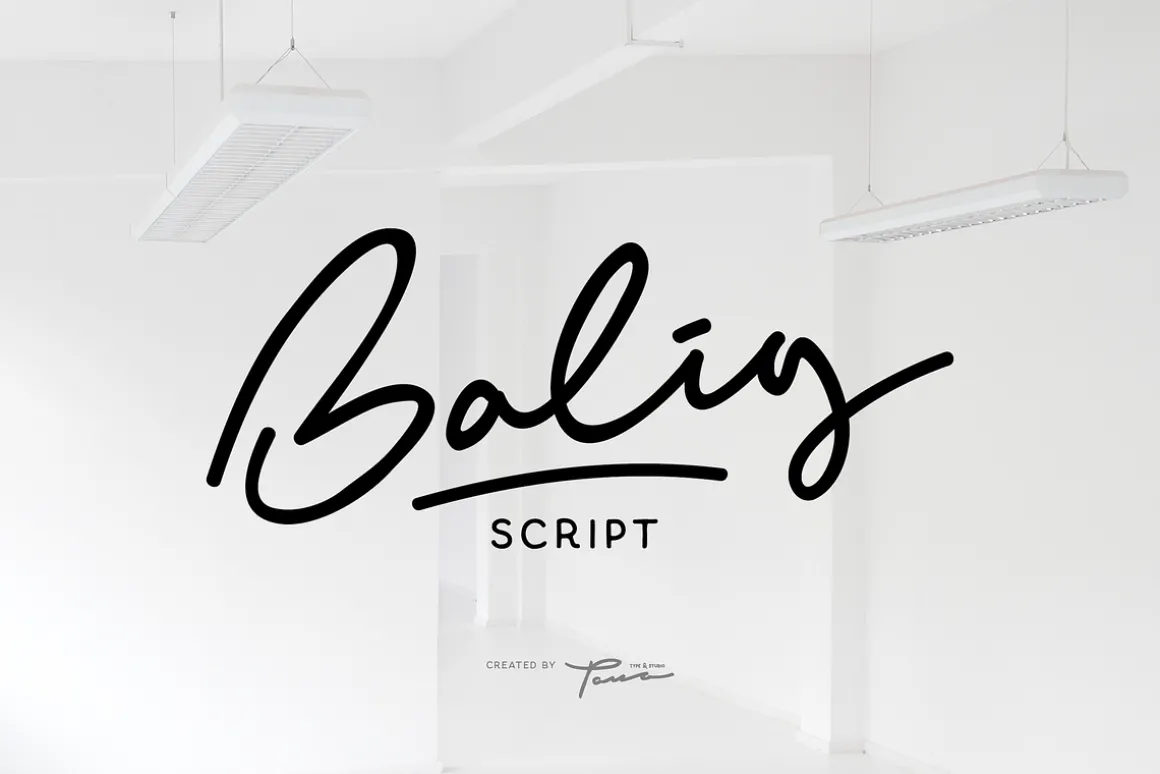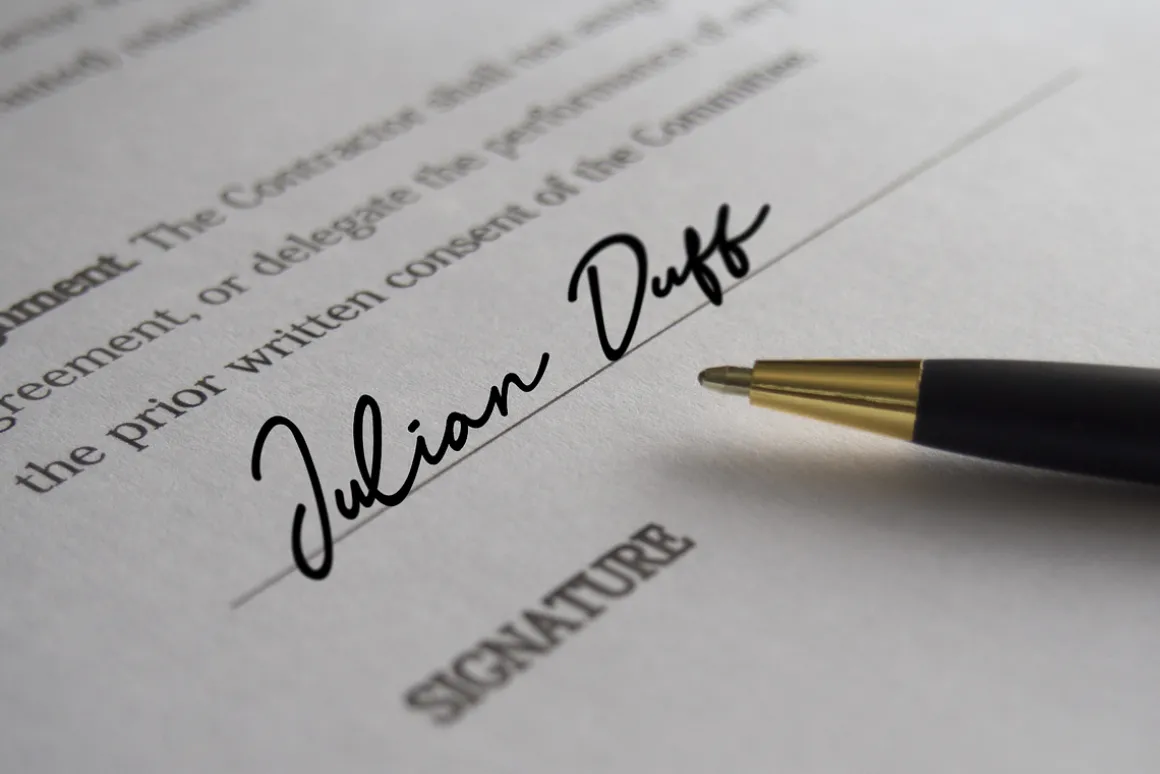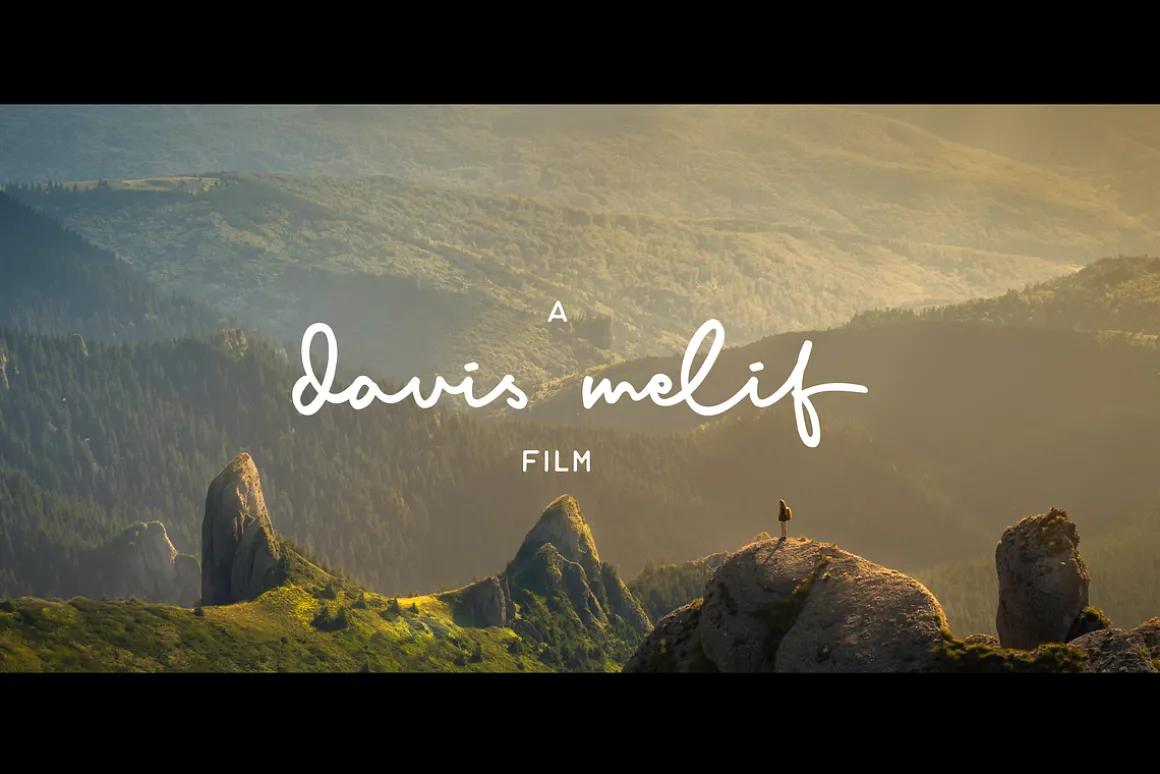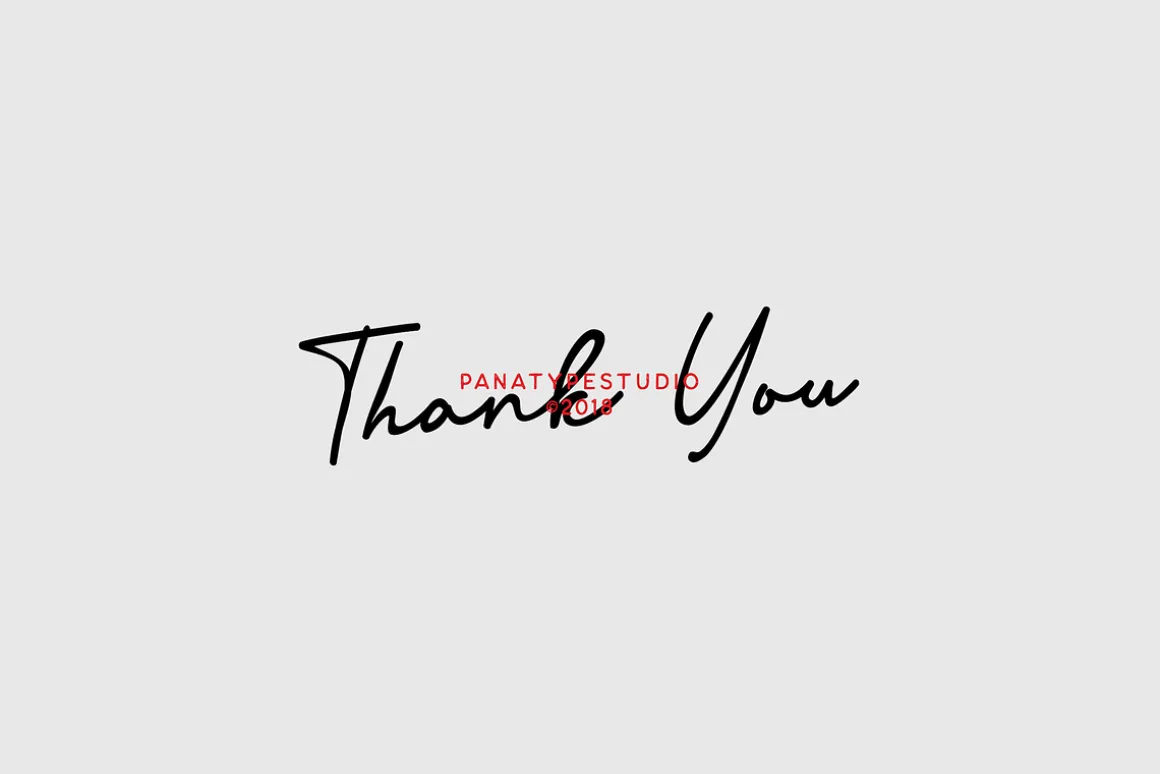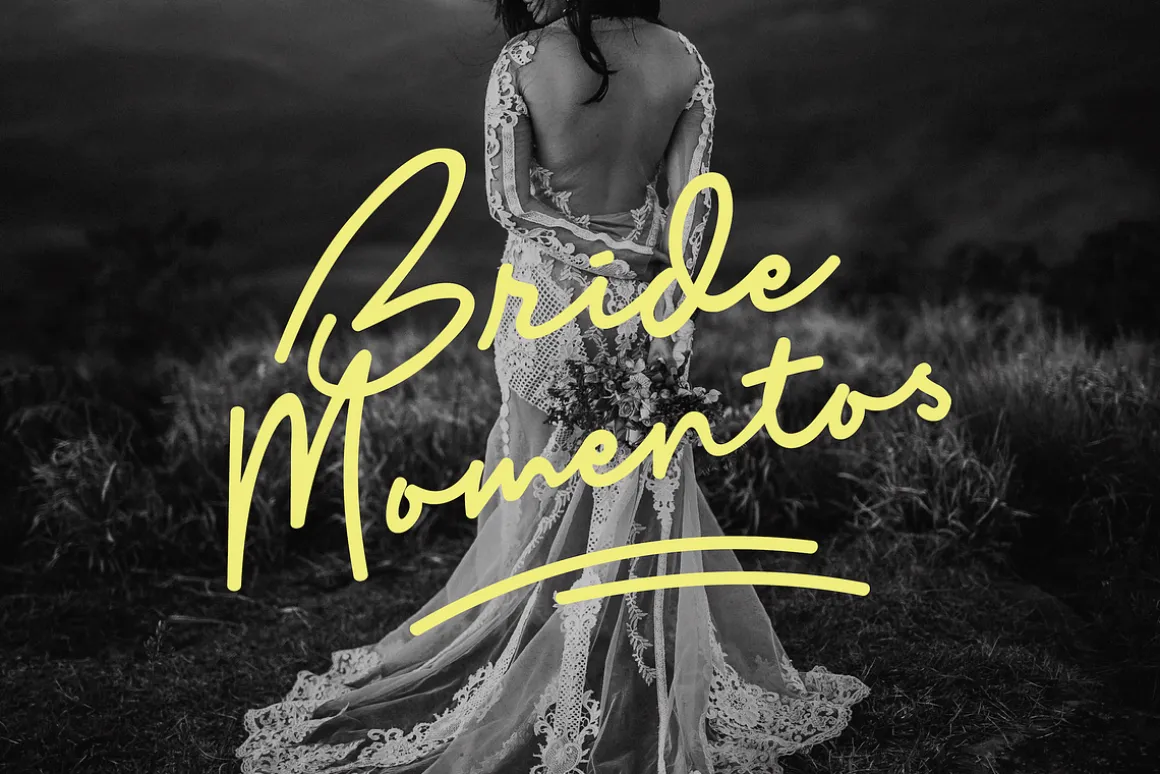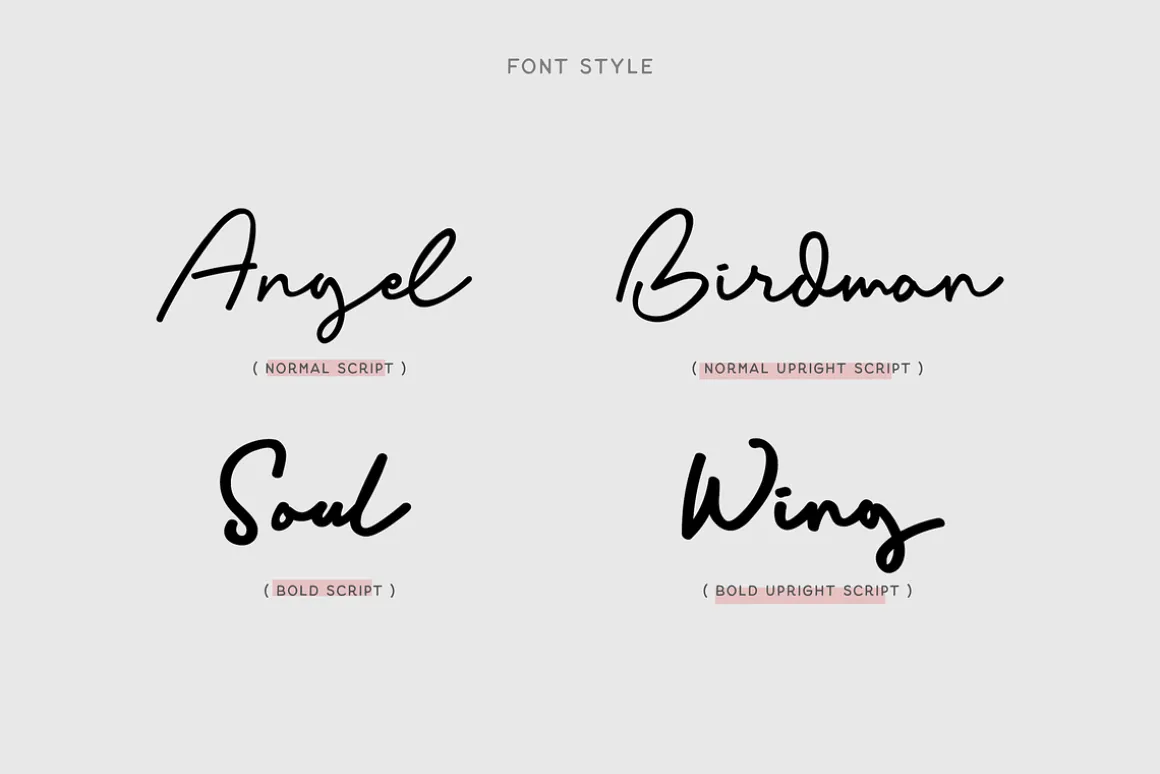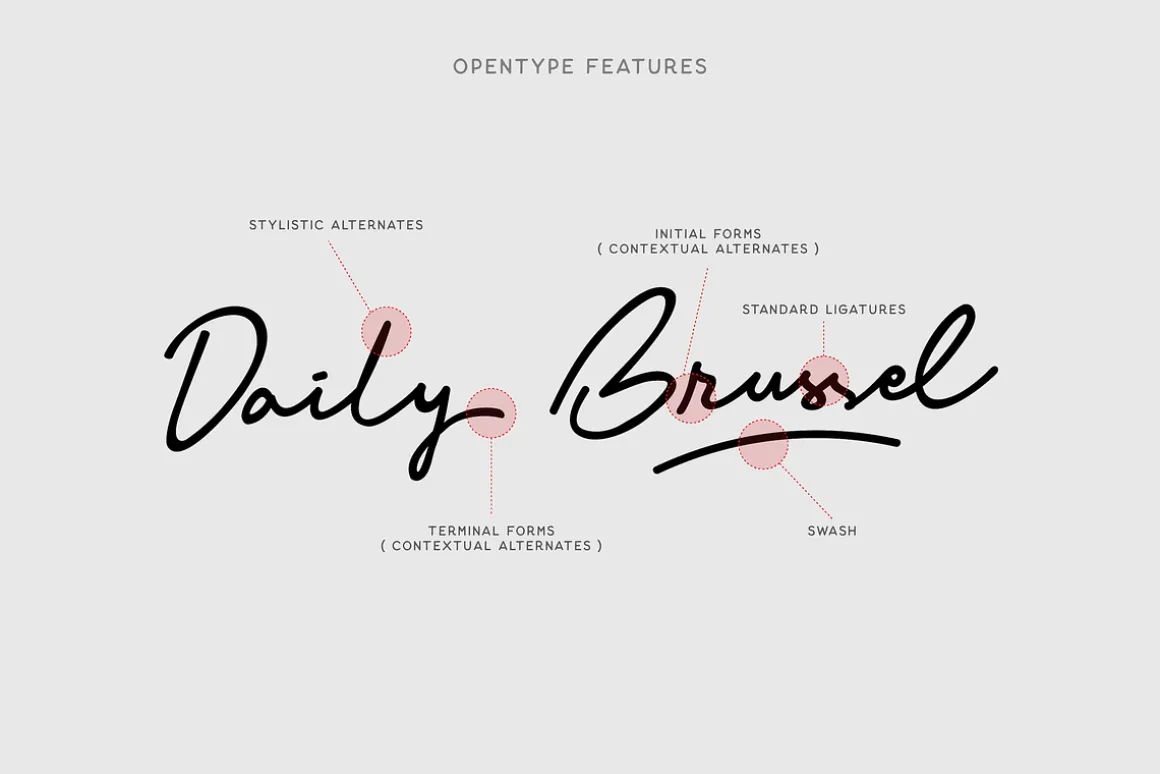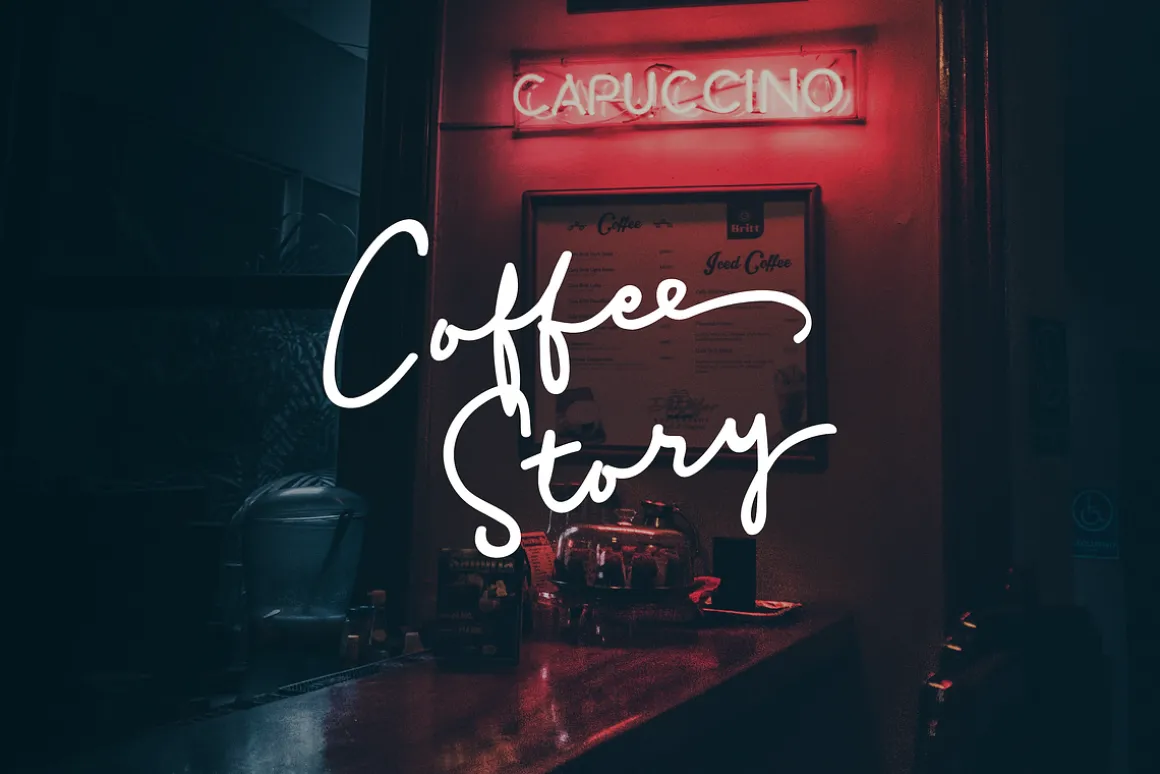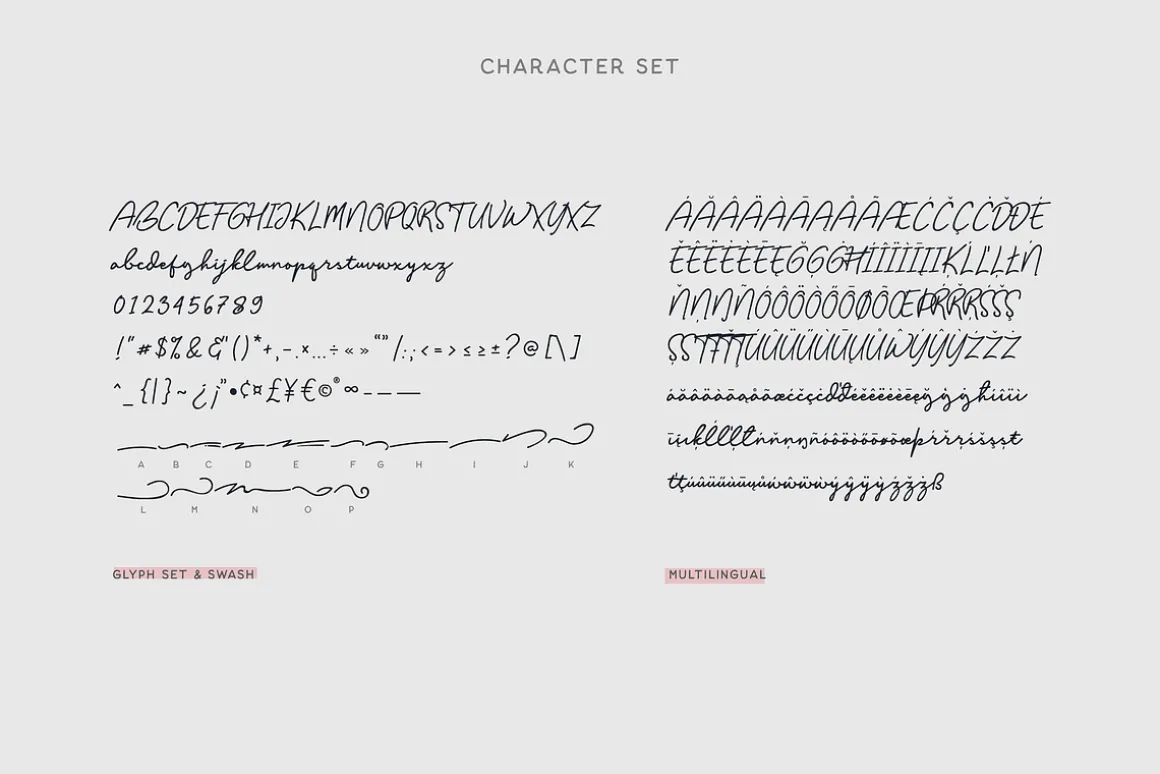
The Balig Script offers a refined blend of versatility and elegance, presented in a signature pen style. Available in two distinct styles—Normal and Bold—this typeface is designed to embody sophistication in every stroke. It’s an ideal choice for projects such as creating captivating signatures, logo types, wedding venues, posters, and brochures.
Balig Script features comprehensive OpenType capabilities, including Stylistic Alternates and Contextual Alternates such as Initial and Terminal Forms. These elements combine to offer a natural flow that enhances the aesthetic quality of each letter.
Opentype FeaturesStandard LigaturesContextual AlternatesStylistic Alternates